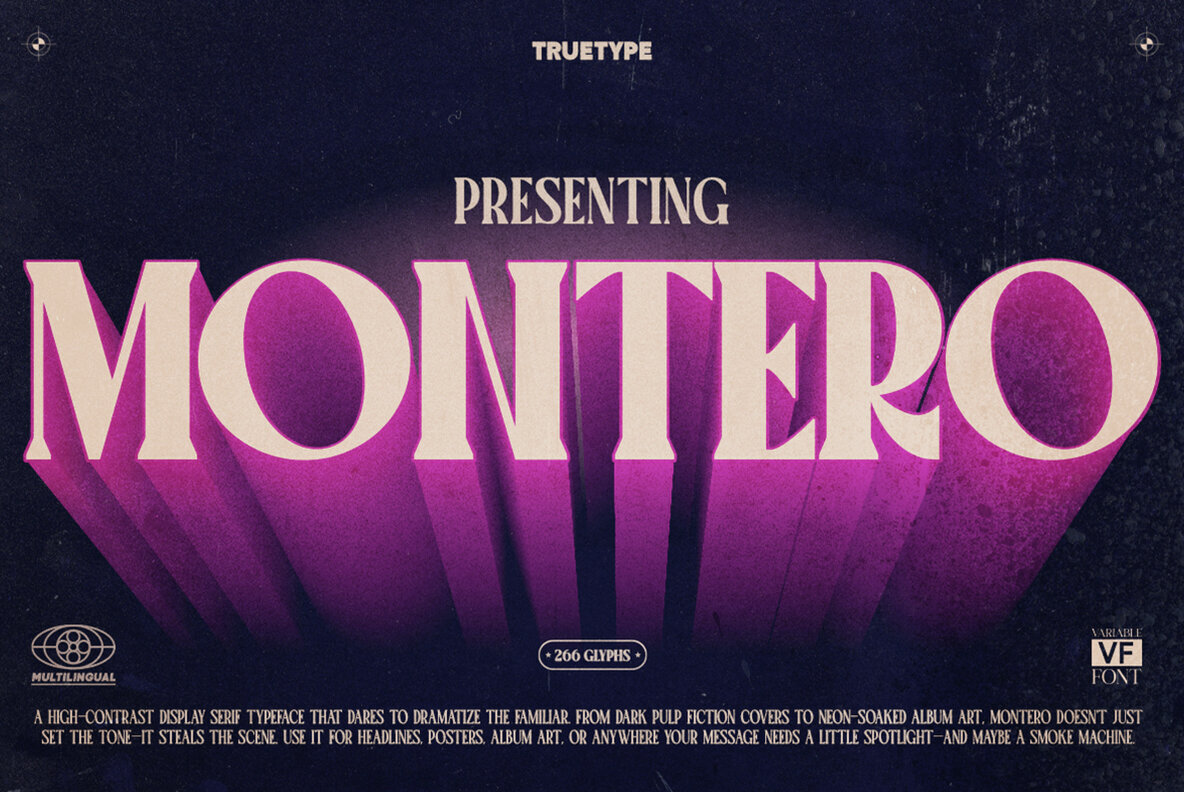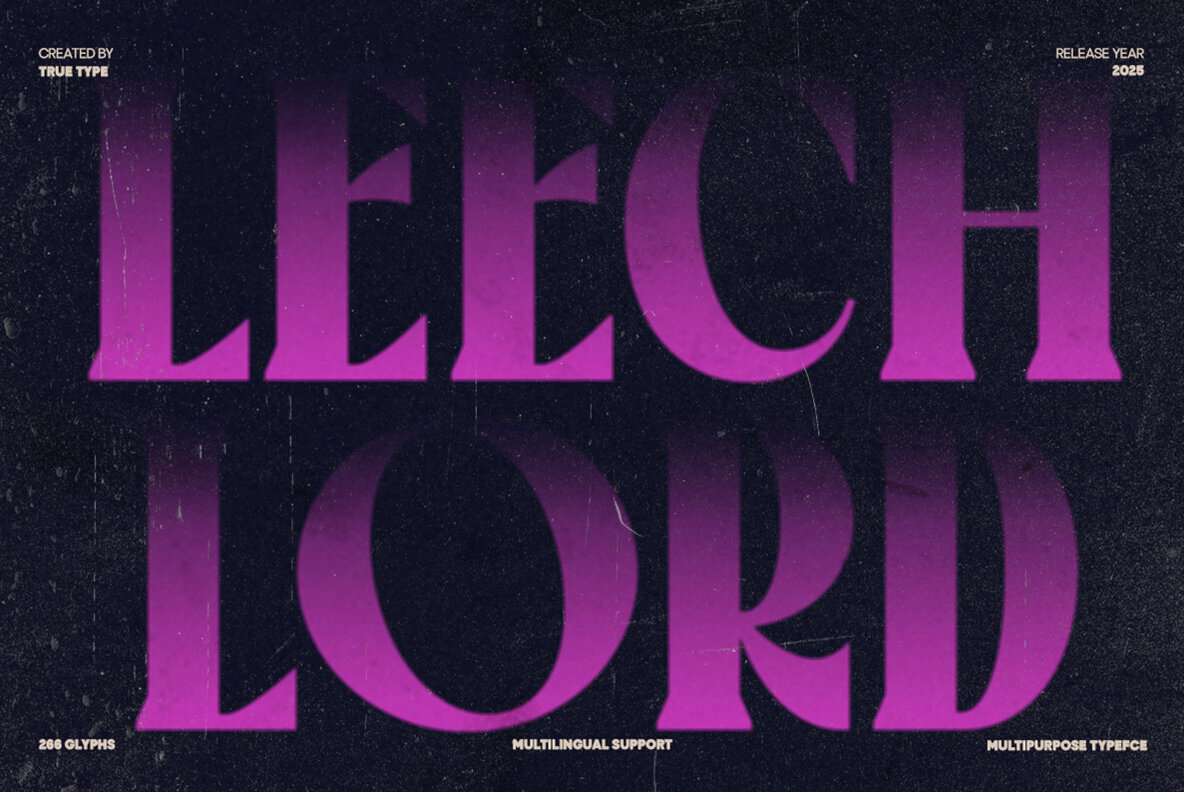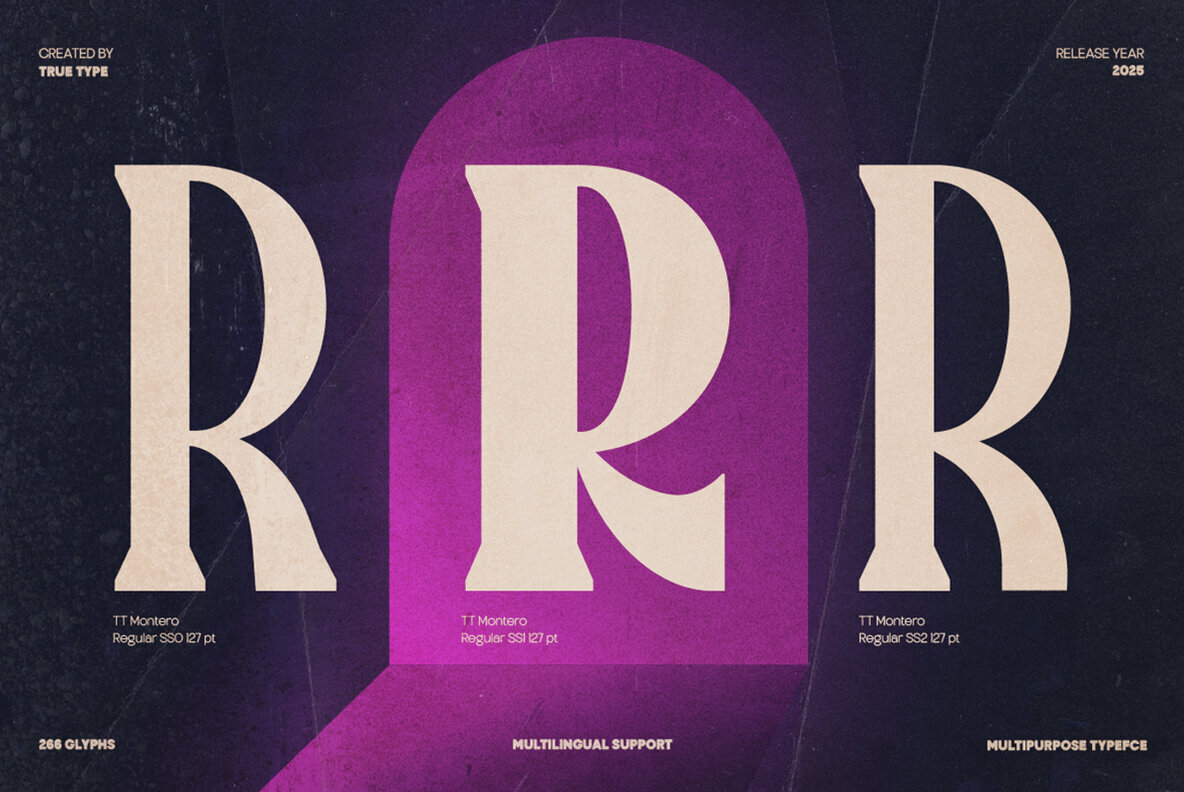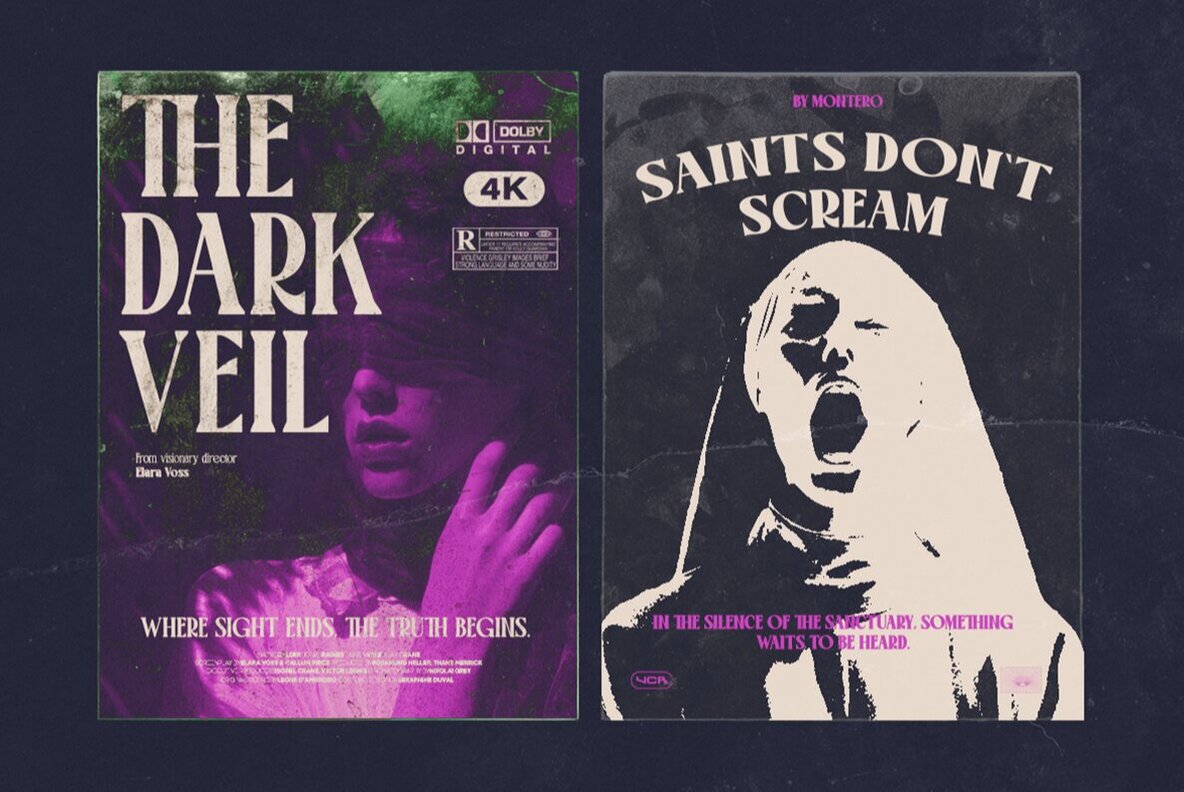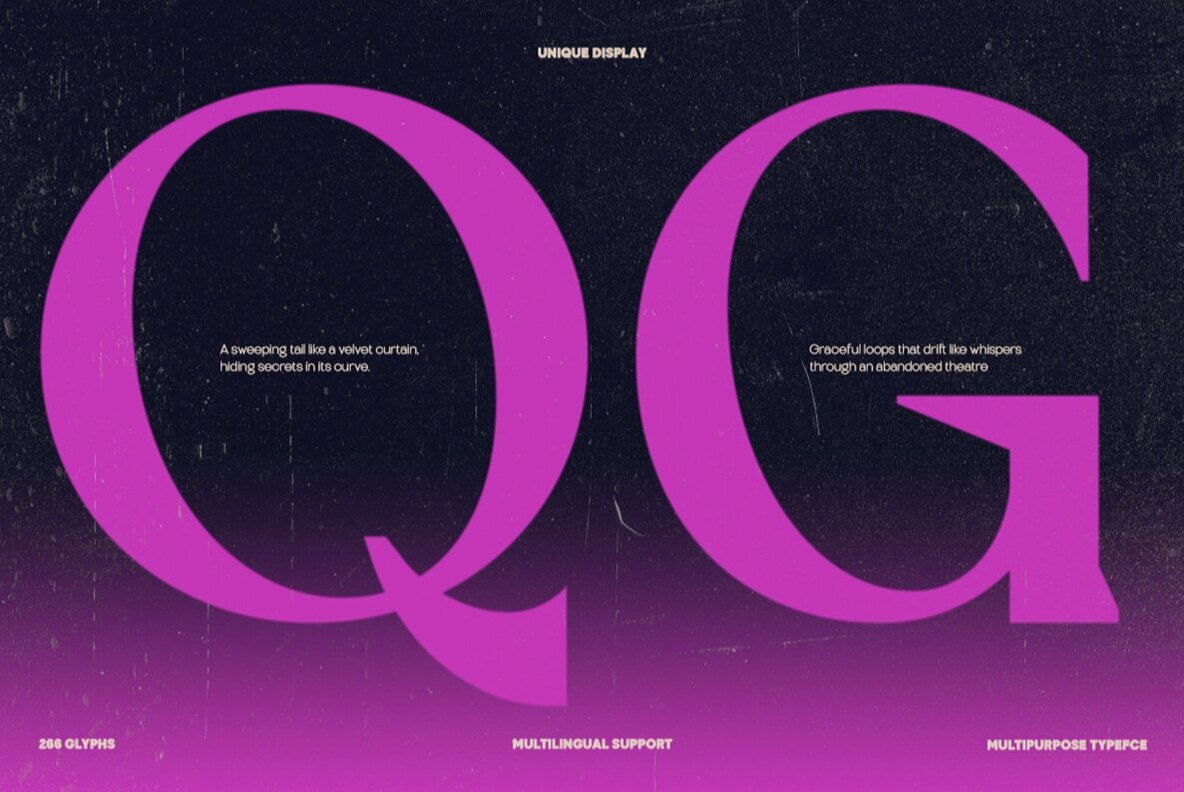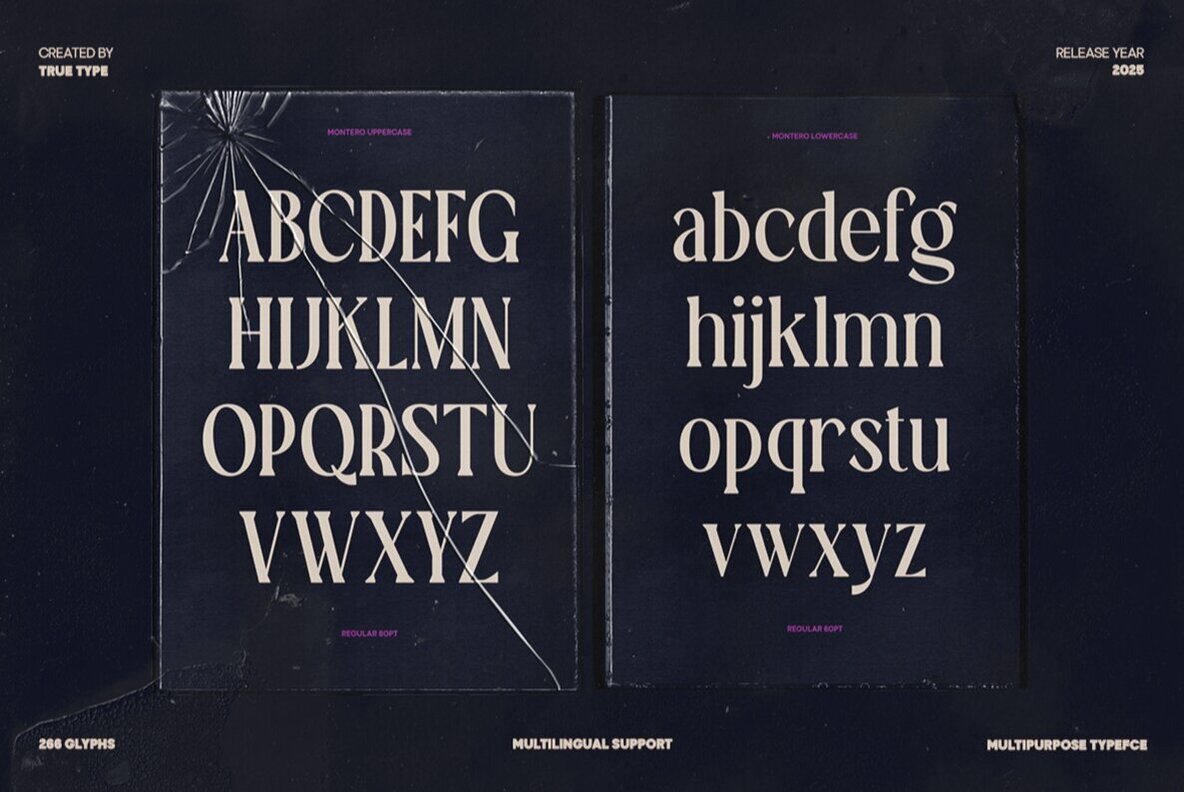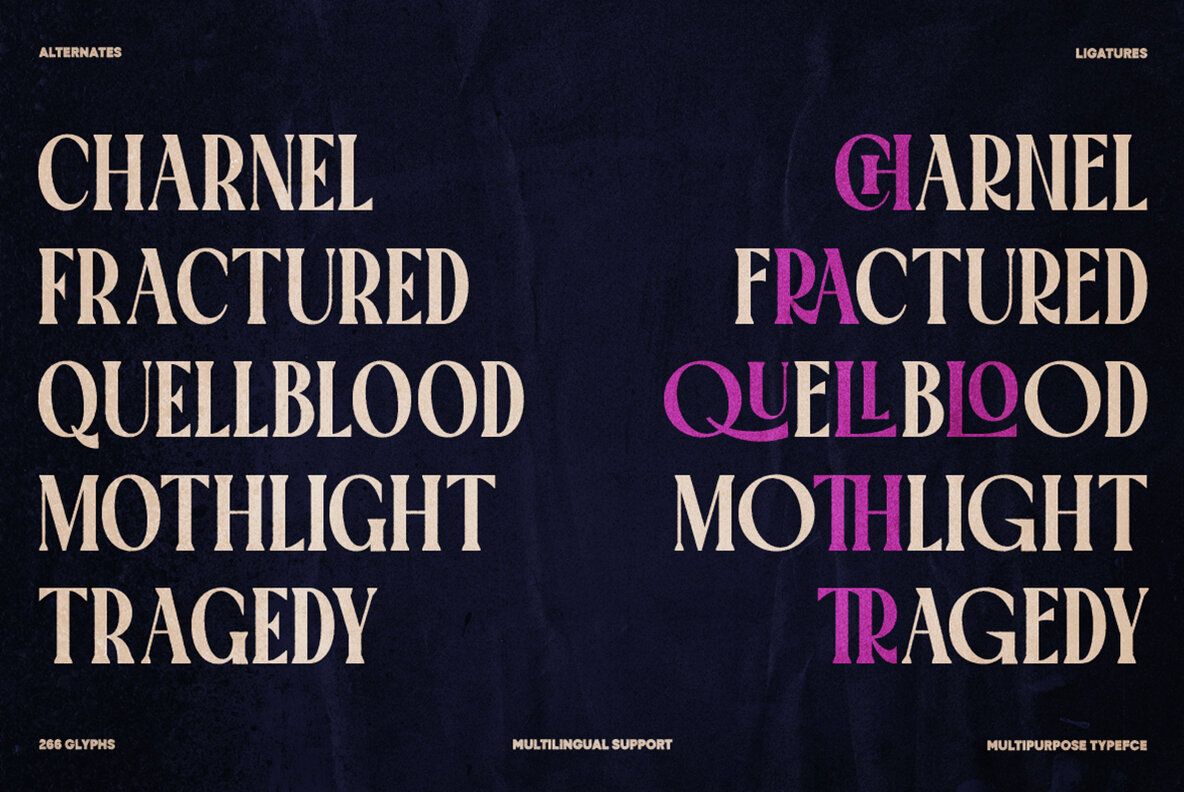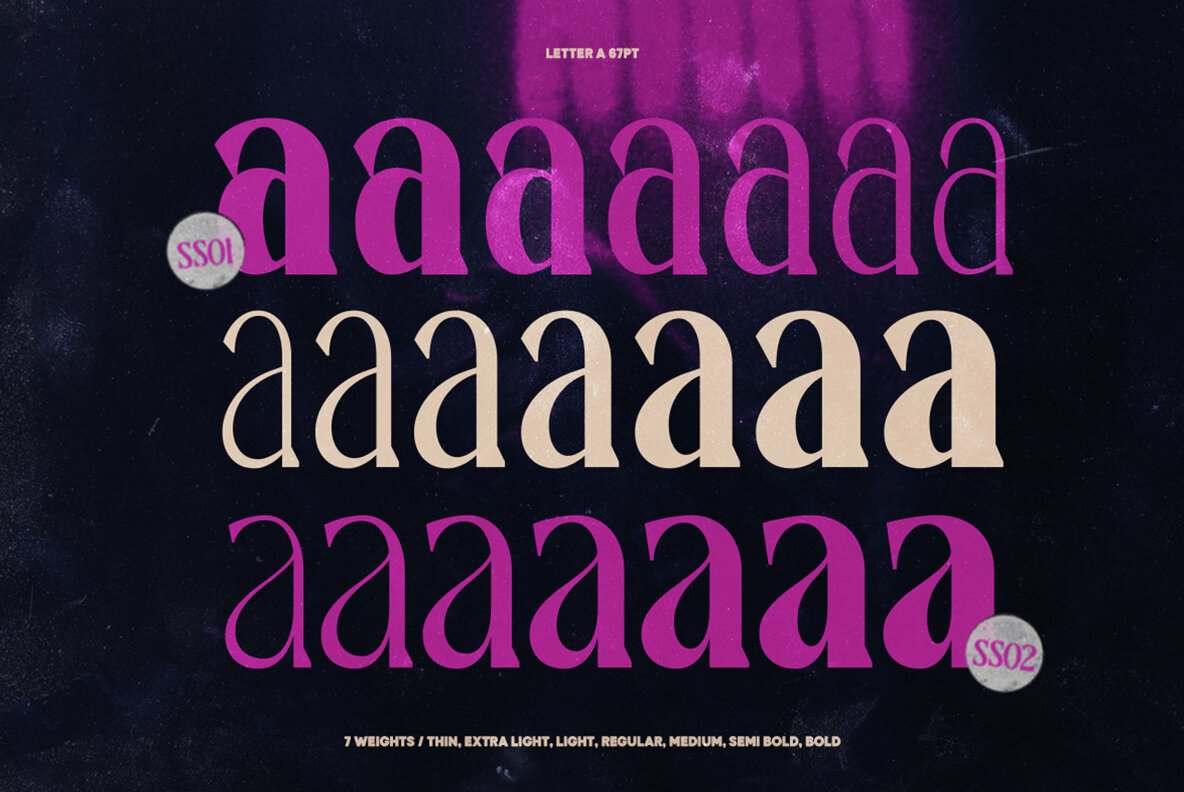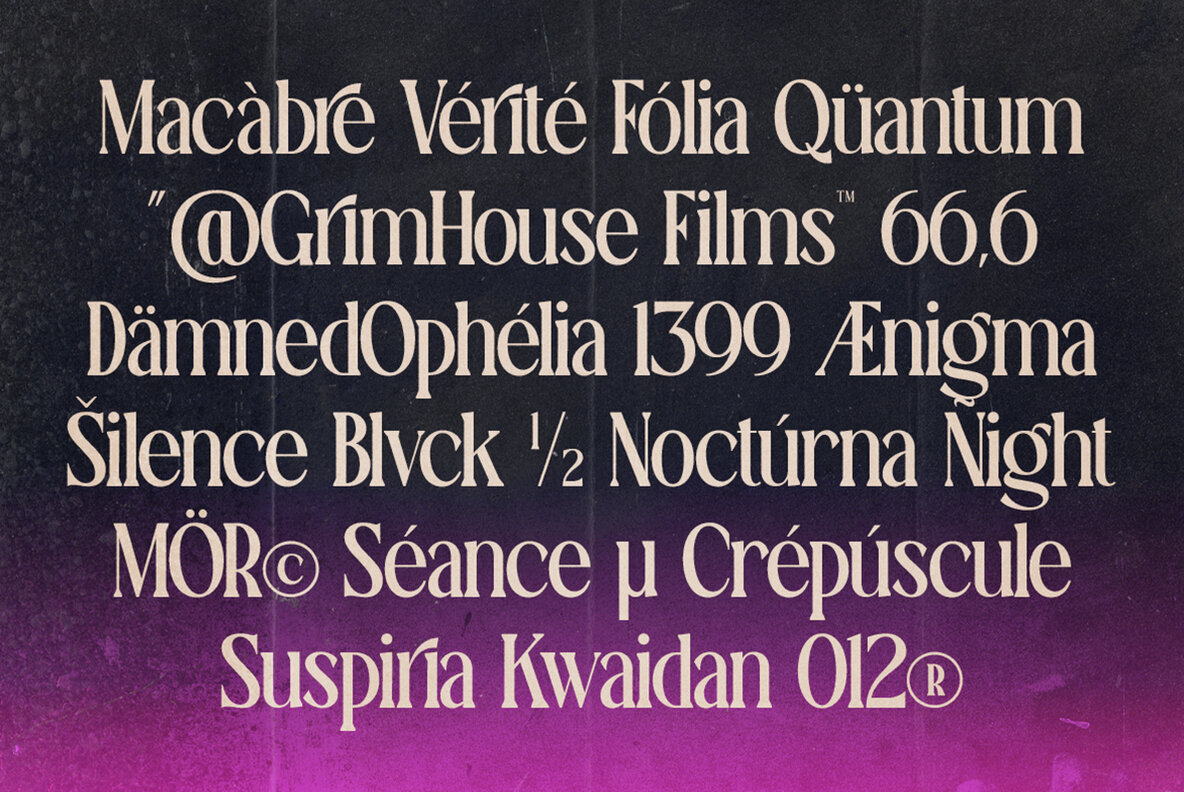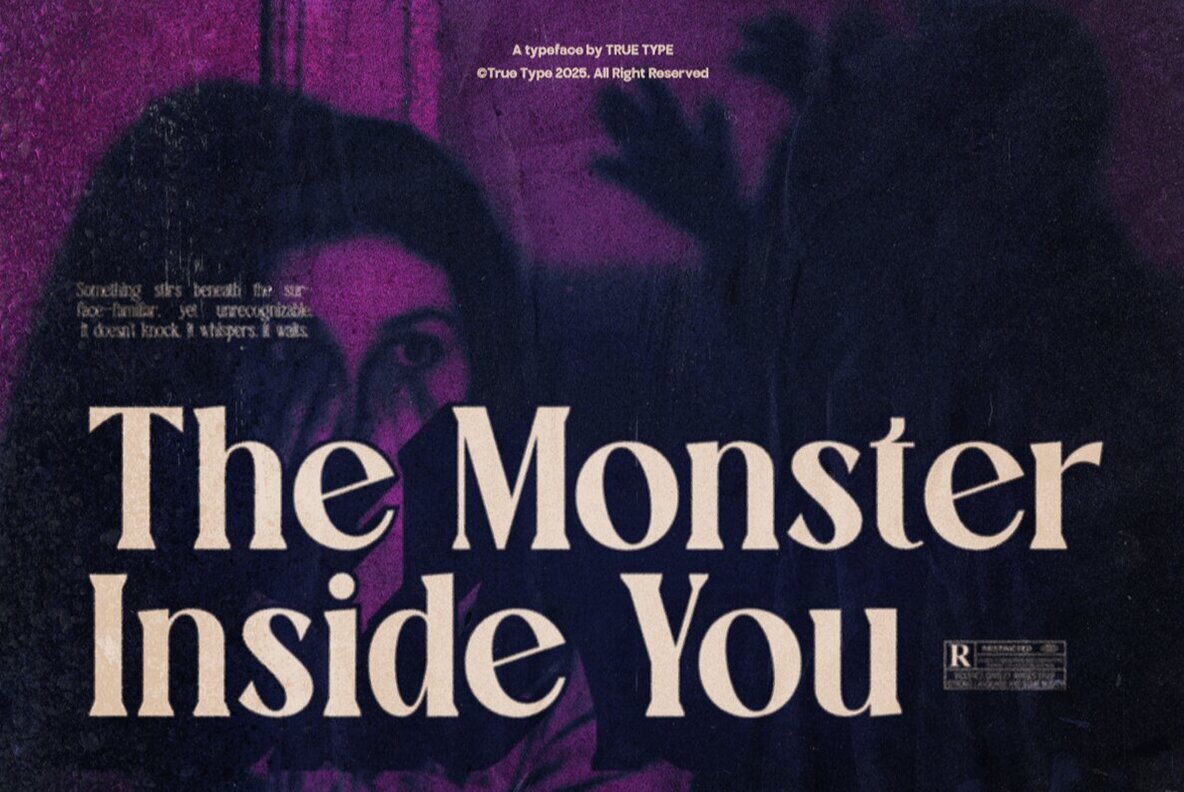
TT Montero Font
TT Montero is a condensed serif typeface that artfully blends classic elegance with sleek modernity. Designed with narrow proportions and sophisticated serif details, it is ideal for projects requiring space efficiency and finesse. Featuring small caps and OpenType capabilities, TT Montero offers versatility across editorial and branding applications. With tall letterforms, sharp serifs, and striking contrast, TT Montero excels in headlines, fashion campaigns, and typographic quotes. Its compact shape fits more content in confined spaces without sacrificing readability, making it suitable for magazines, logos, and digital platforms. TT Montero exudes a classic yet contemporary vibe, bringing structure and stylish charm to compositions. Whether crafting wedding invitations, nostalgic branding, or product packaging, this typeface infuses each letter with character and grace.TT Montero: A Balanced Condensed Serif Typeface